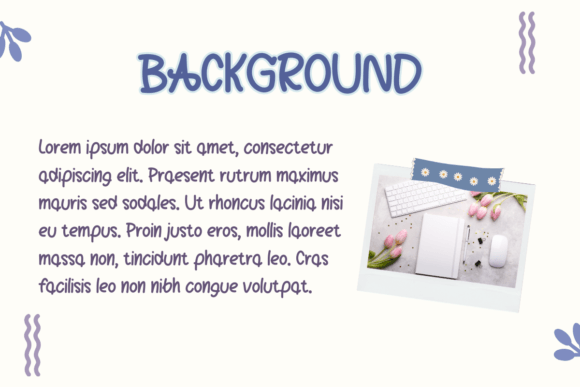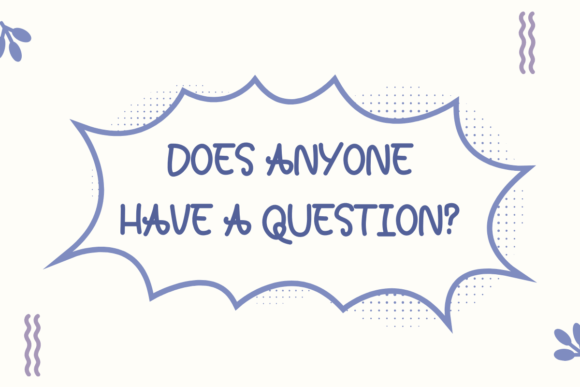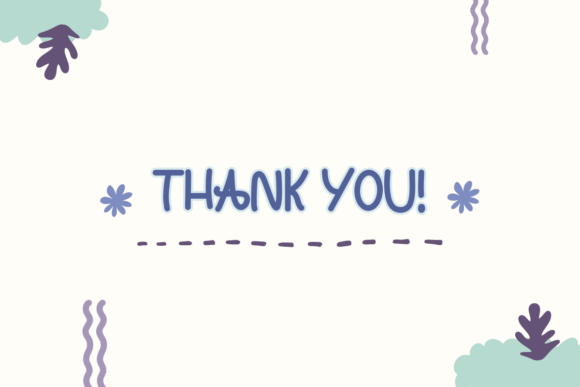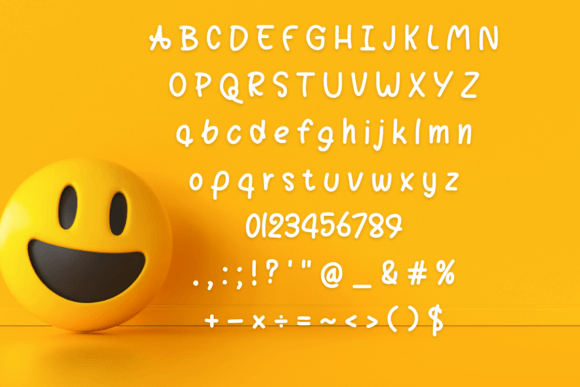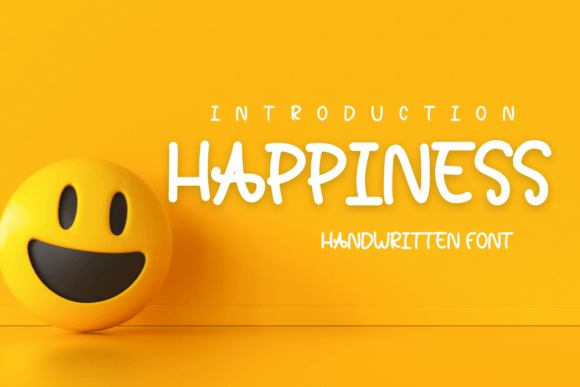
Happiness Font: The Perfect Handwritten Style for Your Creative Projects
Are you looking for a font that can add a personal touch to your designs? Look no further than the Happiness Font! This beautiful handwritten font is perfect for a variety of creative projects, from taking notes and writing diary entries to making greeting cards and more. In this article, we’ll explore the features and benefits of the Happiness Font, and show you how to use it to take your designs to the next level.
What is Happiness Font?
Happiness Font is a unique and charming handwritten font that is designed to bring a touch of warmth and personality to your designs. With its flowing lines and whimsical feel, this font is perfect for anyone who wants to add a bit of elegance and sophistication to their work. Whether you’re a designer, crafter, or simply someone who loves to write, the Happiness Font is a great choice for any project.
Uses for Happiness Font
One of the best things about the Happiness Font is its versatility. While it’s perfect for traditional uses like taking notes and writing diary entries, it can also be used for a wide range of other design projects, including:
• Banners: Use the Happiness Font to create eye-catching banners for parties, events, or promotions.
• Content: Add a personal touch to your blog posts, articles, or website content with the Happiness Font.
• Mugs: Design custom mugs with the Happiness Font for a unique and thoughtful gift.
• Cards: Create personalized greeting cards for birthdays, holidays, or special occasions.
• Shirts: Use the Happiness Font to design custom t-shirts, hoodies, or other apparel.
• Stationery: Add a touch of elegance to your stationery with the Happiness Font.
• Social Media Posts: Use the Happiness Font to create eye-catching social media posts that stand out from the crowd.
Benefits of Using Happiness Font
So why choose the Happiness Font for your designs? Here are just a few benefits of using this beautiful handwritten font:
• Personal Touch: The Happiness Font adds a personal touch to your designs, making them feel more unique and special.
• Easy to Read: The font is easy to read, even in small sizes, making it perfect for a wide range of design projects.
• Versatile: The Happiness Font can be used for a wide range of design projects, from traditional uses like note-taking and diary-writing to more creative projects like banners and social media posts.
• High-Quality: The font is high-quality and professionally designed, ensuring that your designs look polished and professional.
Tips for Using Happiness Font
Here are a few tips for getting the most out of the Happiness Font:
• Experiment with Sizes: Try out different font sizes to see what works best for your design.
• Pair with Other Fonts: Experiment with pairing the Happiness Font with other fonts to create a unique and eye-catching design.
• Use for Headings and Body Text: Use the Happiness Font for both headings and body text to create a cohesive and polished design.
• Add a Personal Touch: Use the Happiness Font to add a personal touch to your designs, such as by including a handwritten note or signature.
The Happiness Font is a beautiful and versatile handwritten font that is perfect for a wide range of creative projects. With its flowing lines and whimsical feel, this font is sure to add a touch of elegance and sophistication to your designs. Whether you’re a designer, crafter, or simply someone who loves to write, the Happiness Font is a great choice for any project. So why wait? Download the Happiness Font today and start creating your own unique and eye-catching designs!